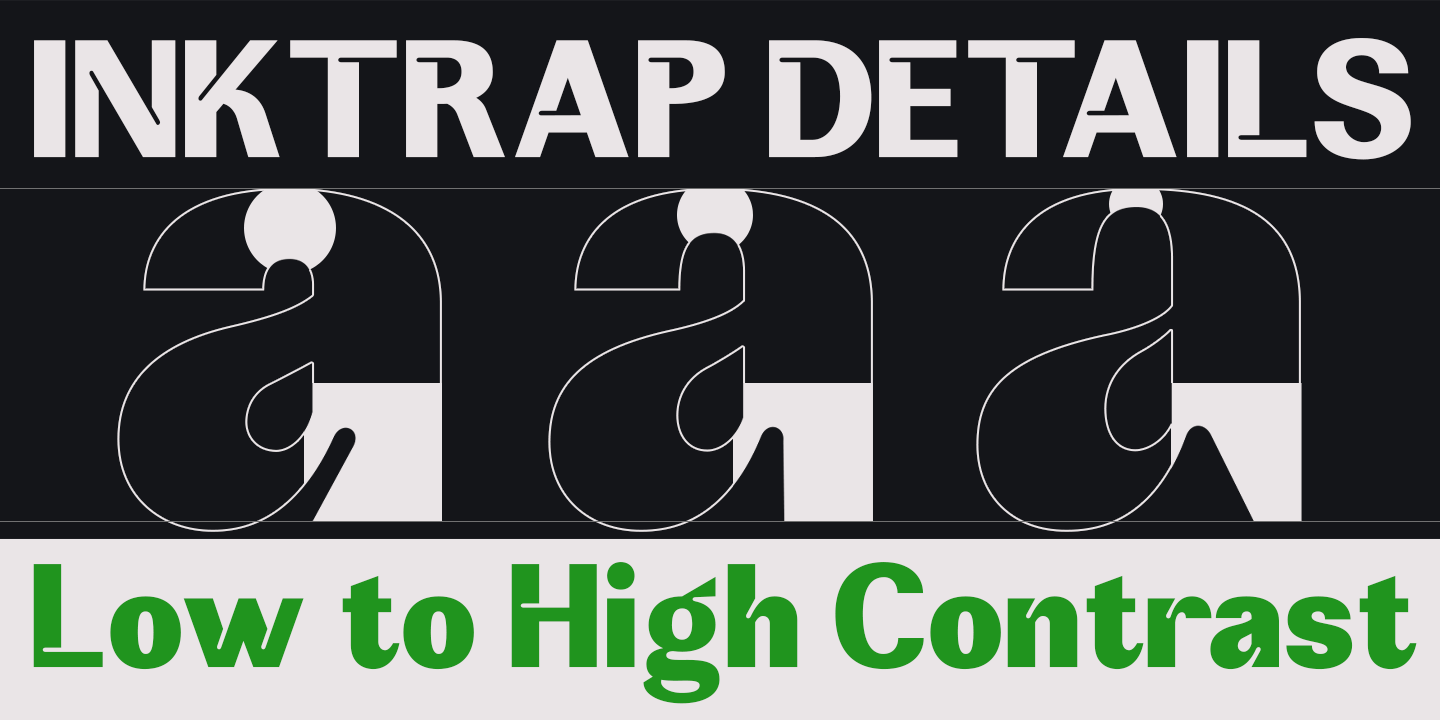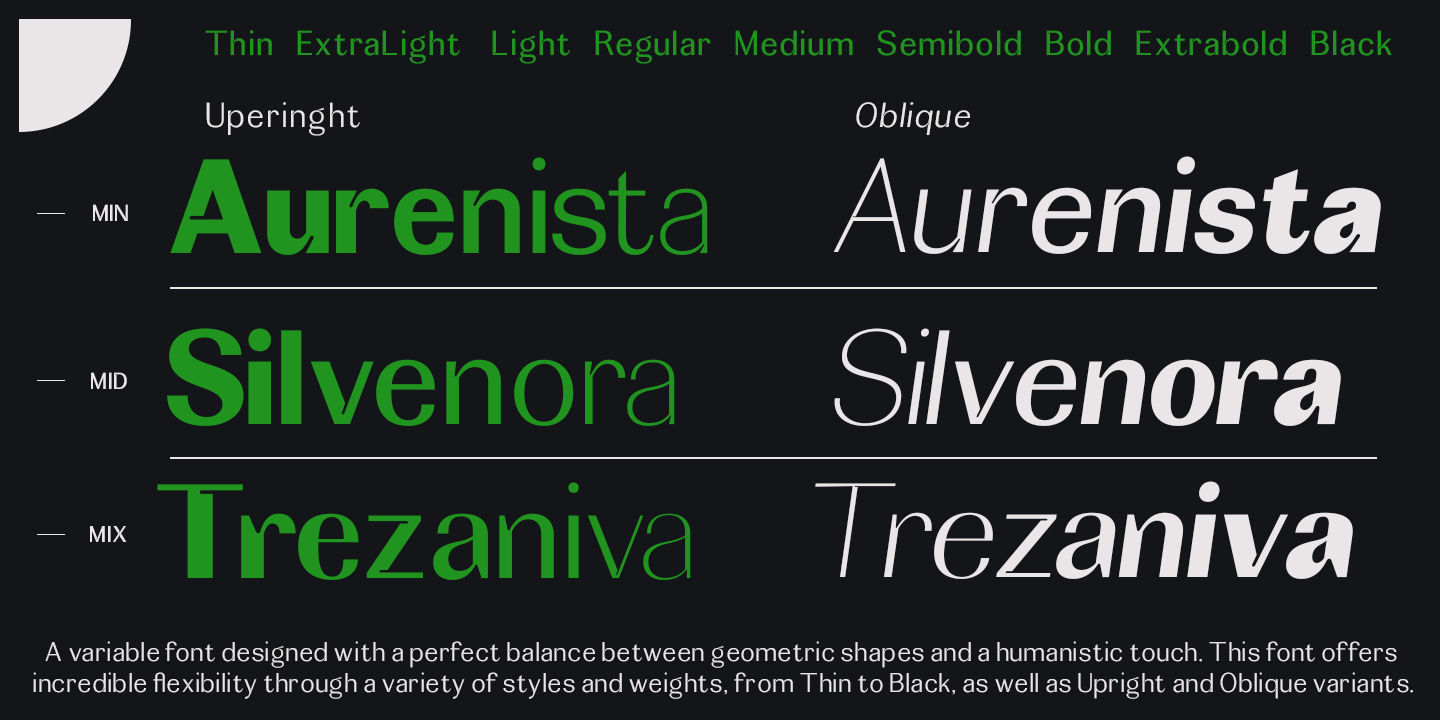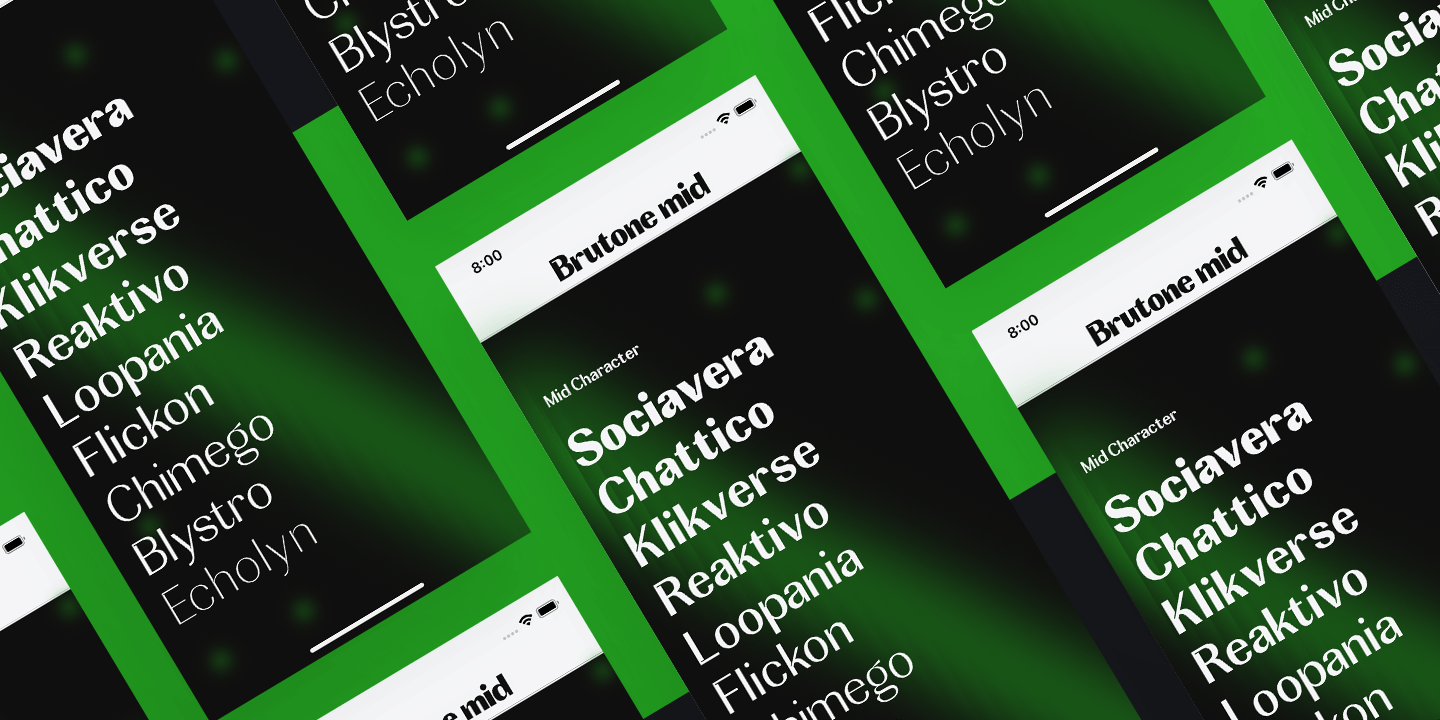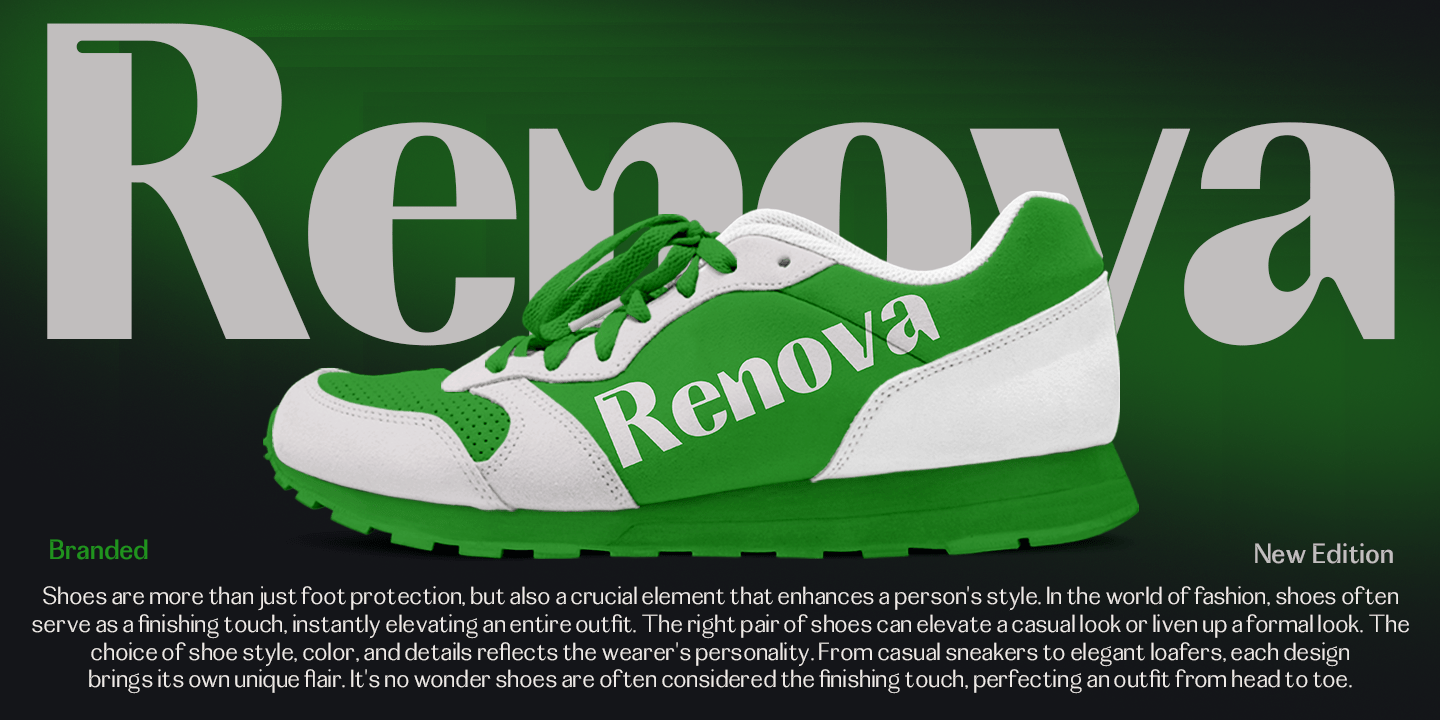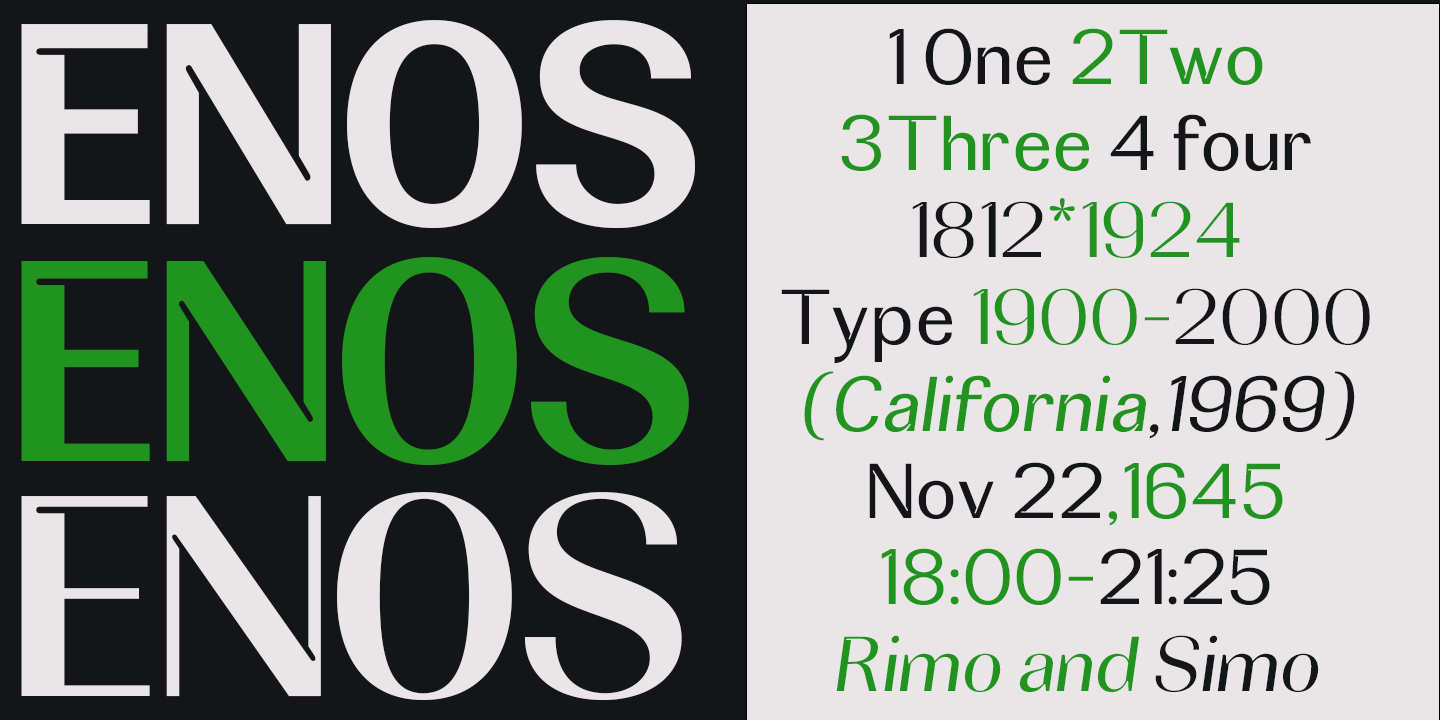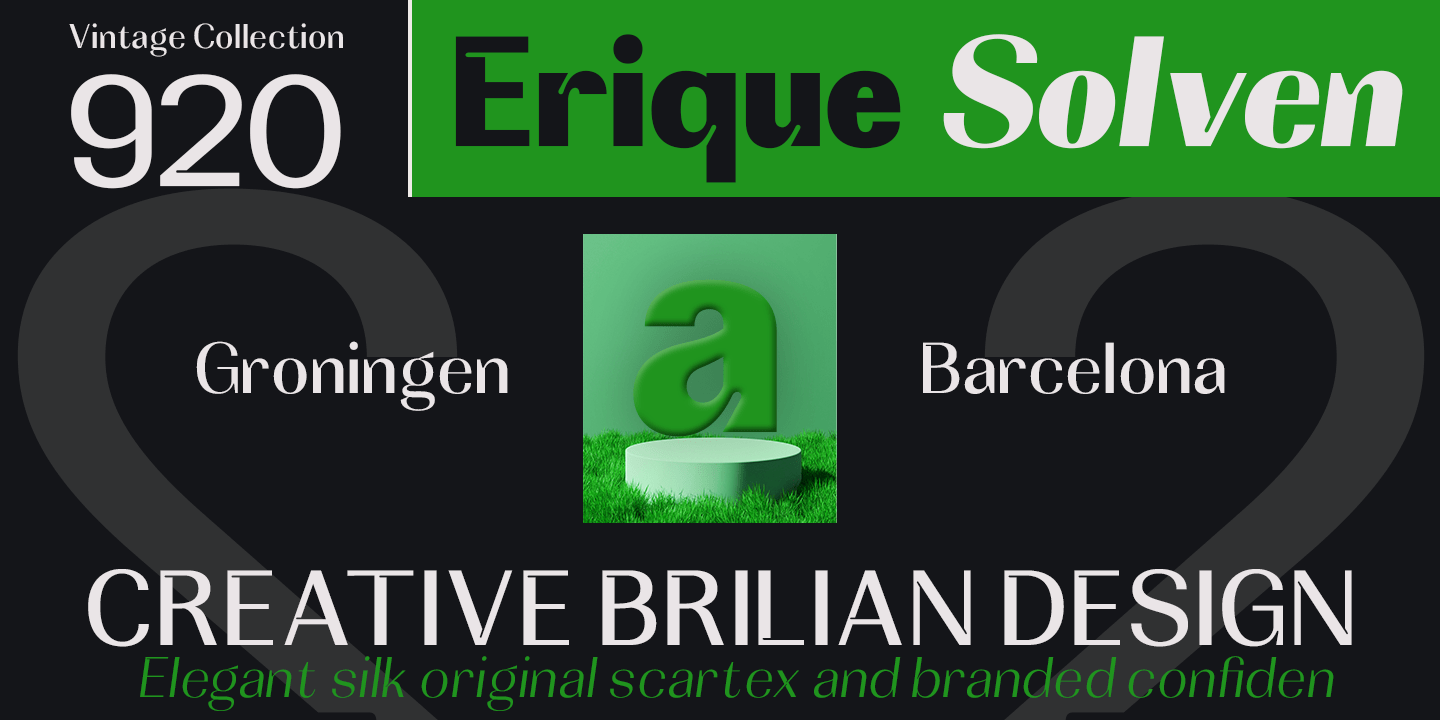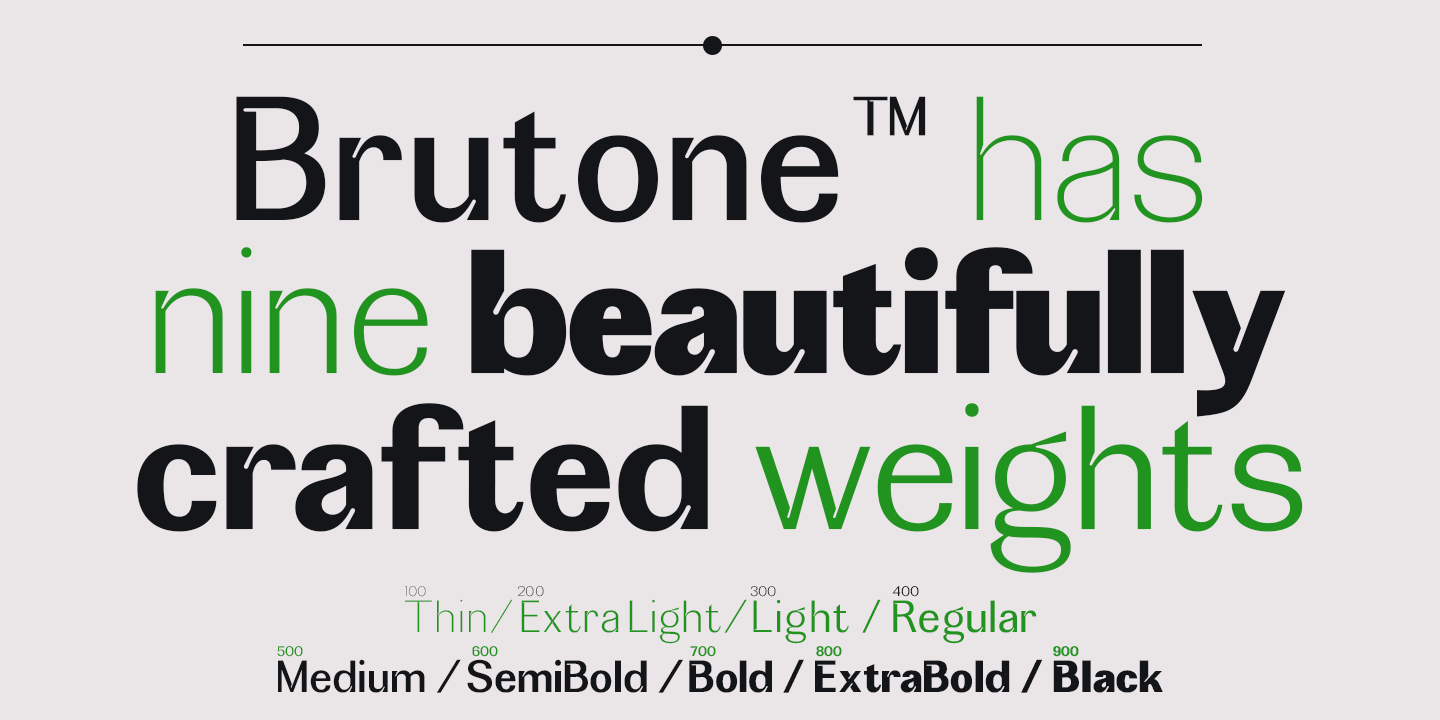
Brutone
55 Font Family by Mantype Studio
Brutone is a modern sans serif font with a neutral, and balanced design, crafted for strong and flexible display use. Featuring sharp yet clean characteristics, Brutone is ideal for branding projects, editorial layouts, UI/UX, and contemporary visual design. With 3 variable font axes — Weight, Styles, and Slant — Brutone offers maximum flexibility for modern typographic needs. Its solid yet approachable letterforms make it perfect for headlines, logos, and visual identities that demand strength and clarity. Whether used in large-scale layouts or minimal interfaces, Brutone delivers consistency, personality, and professional impact across every platform.